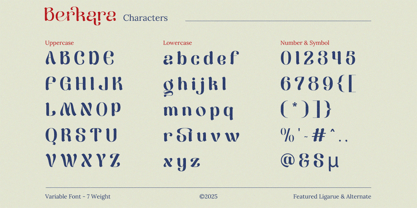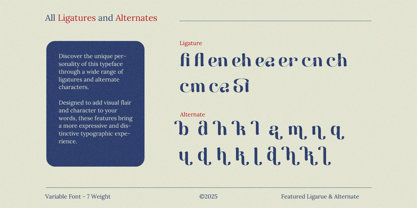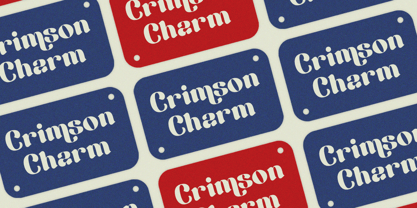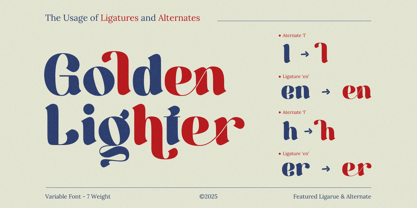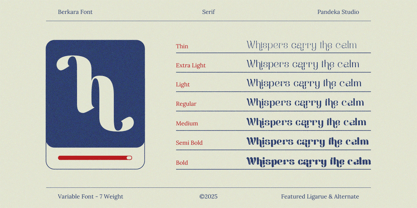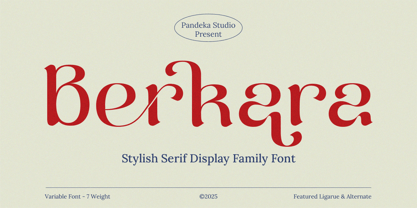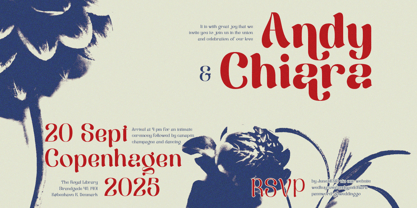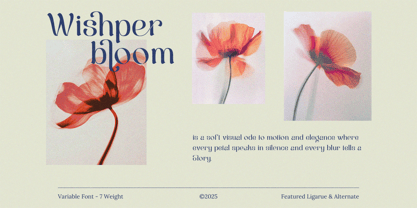
Berkara
by Pandeka Studio
The Berkara Font Family was designed by Sagara Nararya and published by Pandeka Studio. Berkara contains 7 styles and family package options. More about this family
Berkara – Stylish Serif Font Family
Berkara is a vintage-inspired serif font family with a modern and elegant twist. With 7 versatile styles —Thin, Extra Light, Light, Regular, Medium, Semi Bold, and Bold— Berkara offers flexibility for a wide range of creative applications. Its refined ligatures and graceful curves make it perfect for stylish typography in luxury branding, fashion logos, editorial layouts, premium packaging, and sophisticated display design.
• 7 Styles: Thin, Extra Light, Light, Regular, Medium, Semi Bold, and Bold
• Full Character Set: uppercase, lowercase, numbers, symbols, punctuation and ligature
• 25+ Ligatures and alternates
Timeless and bold, Berkara adds a unique character to every project.
Designers: Sagara Nararya
Foundry: Pandeka Studio